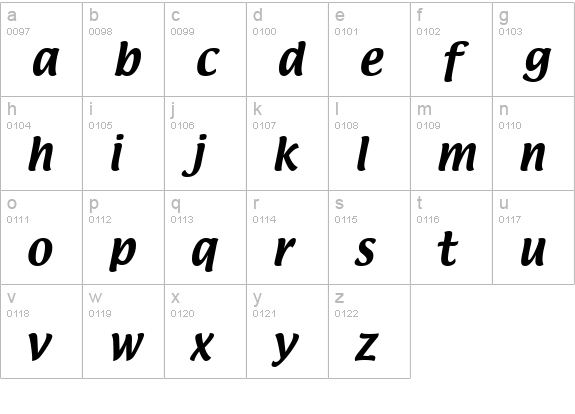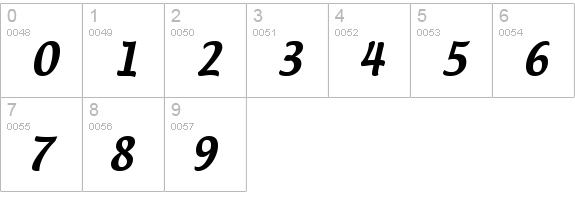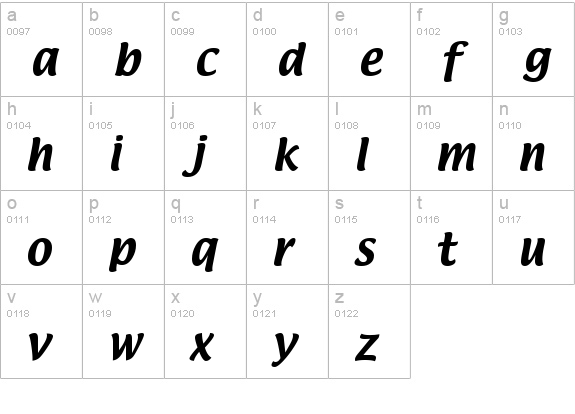
Textile Font Details
Introducing Textile font, a stunning typeface that effortlessly captures the essence of elegance and sophistication. With its intricate details and intricate curves, this font is a true masterpiece, representing the perfect blend of classic and contemporary design elements. Textile font is not only visually captivating, but it also offers a seamless reading experience with its well-balanced letterforms and impeccable spacing. Each letter is meticulously crafted to ensure clarity and legibility, making it an ideal choice for a wide range of creative projects, including branding, packaging, editorial design, and more. What sets Textile font apart from the rest is not just its exquisite design, but also the fact that it is available for free. Yes, you heard it right! This exceptional font can be downloaded at no cost from FontsMarket.com, a reputable platform that offers a vast collection of high-quality fonts. By making Textile font freely available, the creators have made it accessible to designers, entrepreneurs, and enthusiasts alike, enabling them to add a touch of sophistication to their projects without any financial barriers. This generosity allows for endless creative possibilities, empowering individuals to bring their visions to life with ease. Whether you're looking to enhance your visual identity, create captivating headlines, or craft elegant invitations, Textile font is the perfect choice for adding a touch of class and refinement to your designs. Download it today from FontsMarket.com and embark on a typographic journey that will elevate your creations to new heights.